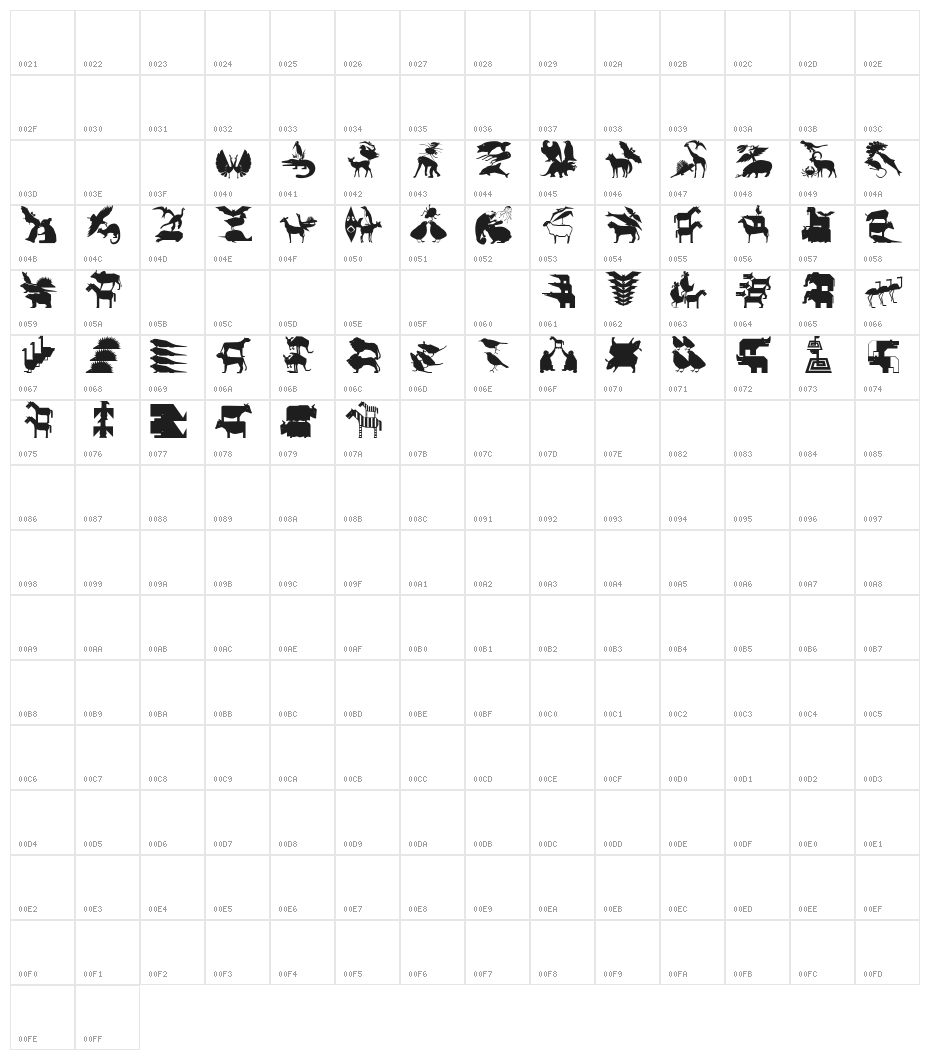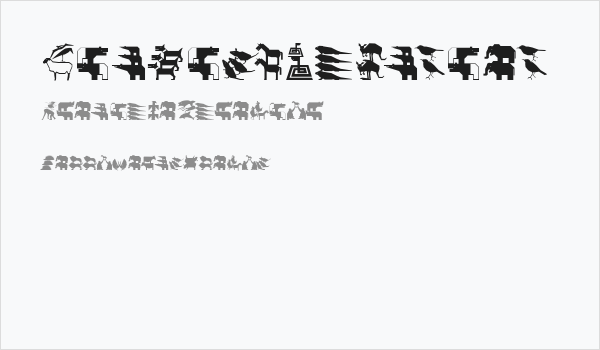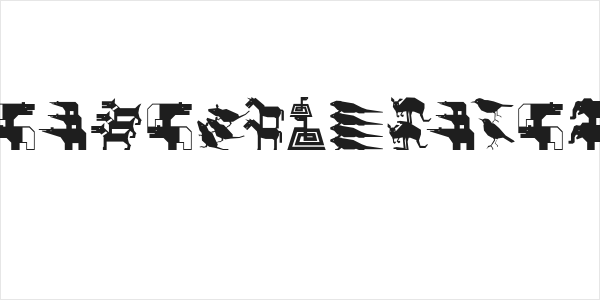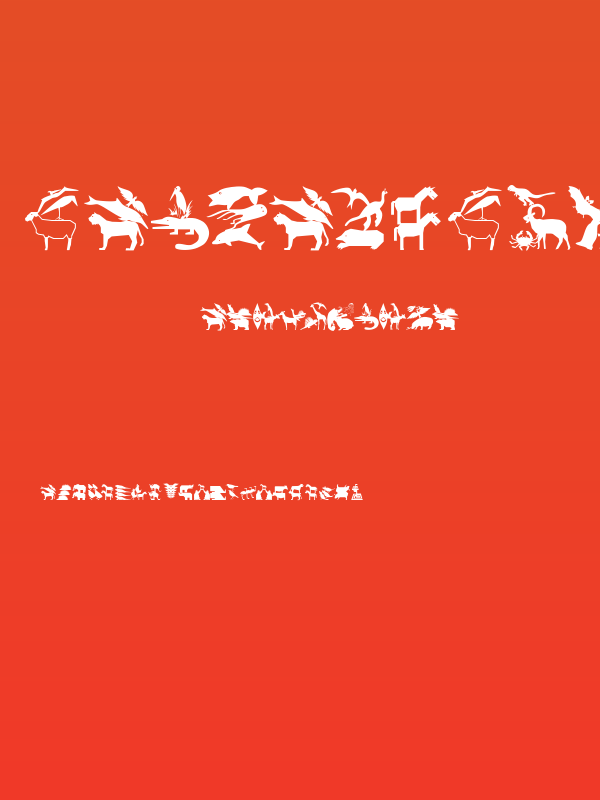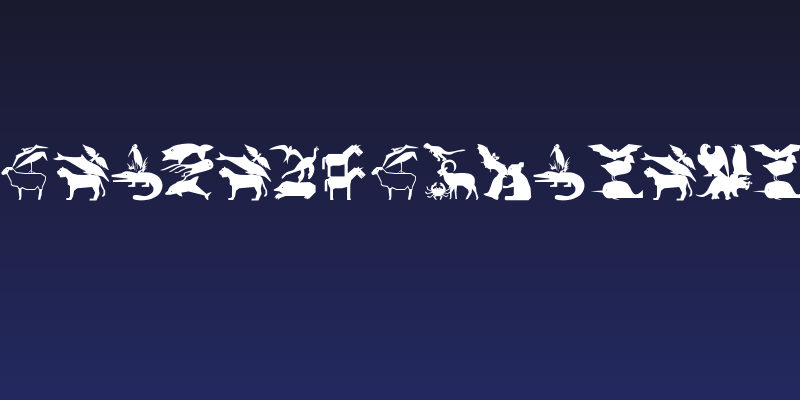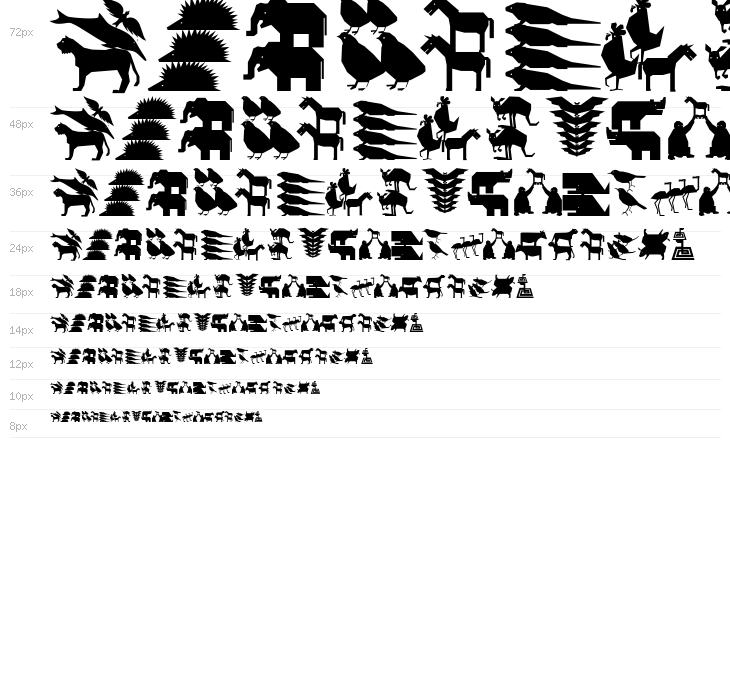
Stadtmusikanten Font
Stadtmusikanten Description
This font is a unique and whimsical collection of animal silhouettes, each representing a different character. The designs are playful and imaginative, featuring a variety of animals such as birds, horses, and mythical creatures. Each character is intricately detailed, showcasing a blend of creativity and artistry. The font is not designed for traditional text but rather as a decorative element, perfect for adding a touch of fantasy and charm to any project. The silhouettes are bold and striking, making them ideal for eye-catching designs.
| Use Case | Logos, Posters, Decorative Art |
| Proposed Projects | Ideal for children's books, fantasy-themed posters, creative invitations, and decorative art projects. |